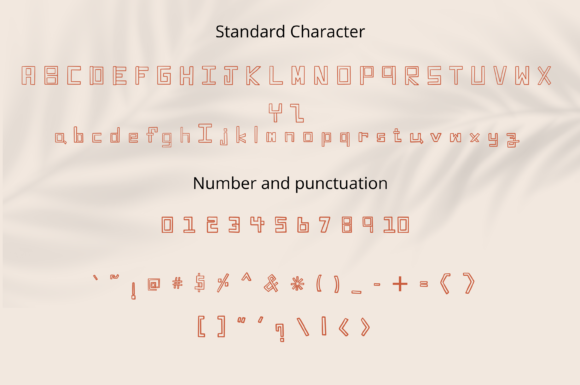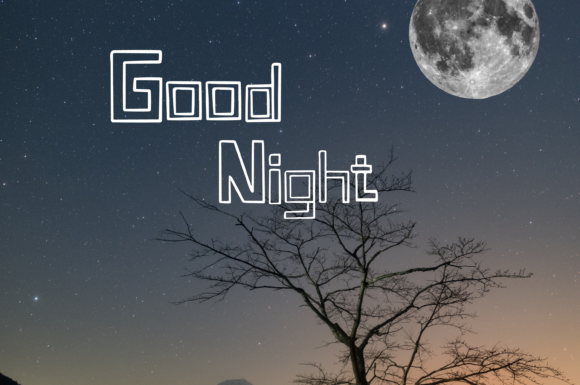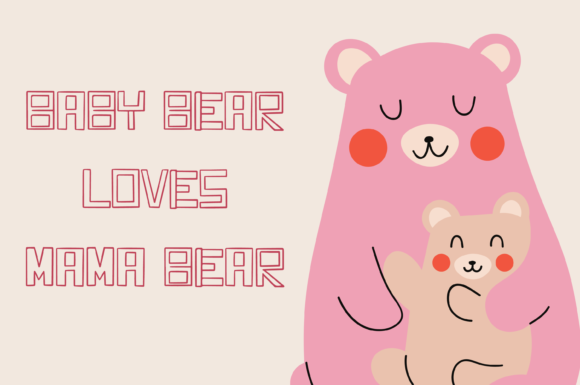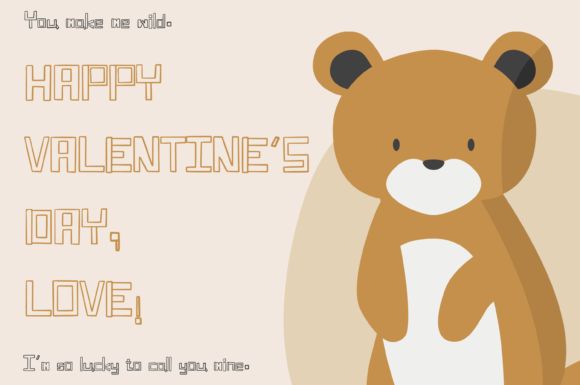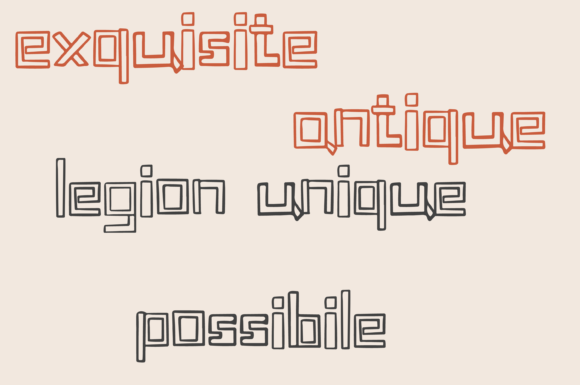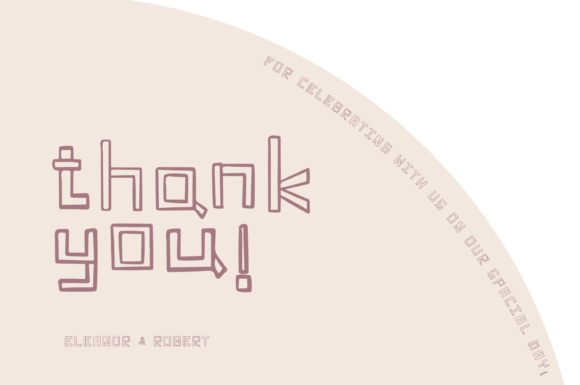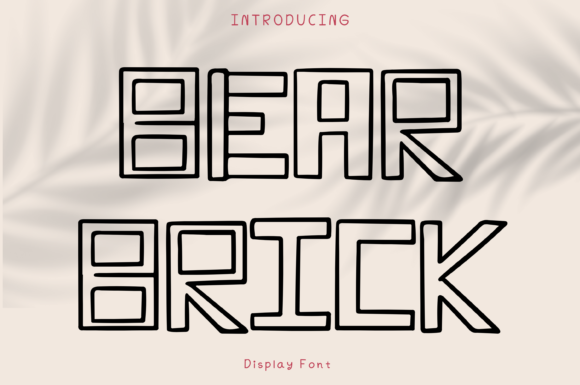
Bear Brick Font: Add a Playful Touch to Your Designs
Bear Brick is a whimsical and quirky display font that has been gaining popularity among designers and crafters. This unique font features characters that look slightly uneven and playful, making it perfect for adding a friendly appearance to your designs. In this article, we’ll explore the features and benefits of Bear Brick Font, and how you can use it to elevate your creative projects.
What is Bear Brick Font?
Bear Brick Font is a display font that is designed to add a touch of playfulness and whimsy to your designs. The font features characters that are slightly uneven and quirky, giving it a friendly and approachable feel. The font is perfect for use in a variety of design projects, including logos, branding, packaging, and more.
Key Features of Bear Brick Font
- Whimsical and quirky design: Bear Brick Font features characters that are slightly uneven and playful, making it perfect for adding a friendly touch to your designs.
- Display font: Bear Brick Font is designed specifically for use as a display font, making it perfect for headlines, titles, and other large text elements.
- Unique character set: The font features a unique character set that includes uppercase and lowercase letters, numbers, and punctuation marks.
- Easy to read: Despite its playful design, Bear Brick Font is easy to read and understand, making it perfect for use in a variety of design projects.
Benefits of Using Bear Brick Font
- Adds a playful touch: Bear Brick Font adds a playful and whimsical touch to your designs, making them more engaging and fun.
- Creates a friendly appearance: The font’s friendly and approachable design makes it perfect for use in designs where you want to create a welcoming and inclusive feel.
- Versatile: Bear Brick Font can be used in a variety of design projects, from logos and branding to packaging and more.
How to Use Bear Brick Font
- Use it as a display font: Bear Brick Font is designed specifically for use as a display font, so use it to create headlines, titles, and other large text elements.
- Experiment with different colors: The font looks great in a variety of colors, so experiment with different colors to find the one that works best for your design.
- Pair it with other fonts: Bear Brick Font pairs well with other fonts, so try pairing it with a sans-serif font for a fun and playful look.
Design Ideas Using Bear Brick Font
- Logos and branding: Use Bear Brick Font to create a fun and playful logo or brand identity.
- Packaging design: The font is perfect for use in packaging design, where you want to create a friendly and approachable feel.
- Posters and flyers: Use Bear Brick Font to create eye-catching posters and flyers that grab attention.
- Digital graphics: The font is perfect for use in digital graphics, such as social media graphics and blog posts.
Bear Brick Font is a unique and playful display font that is perfect for adding a friendly touch to your designs. With its whimsical and quirky design, the font is sure to grab attention and create a lasting impression. Whether you’re a designer or crafter, Bear Brick Font is a great addition to your font collection.